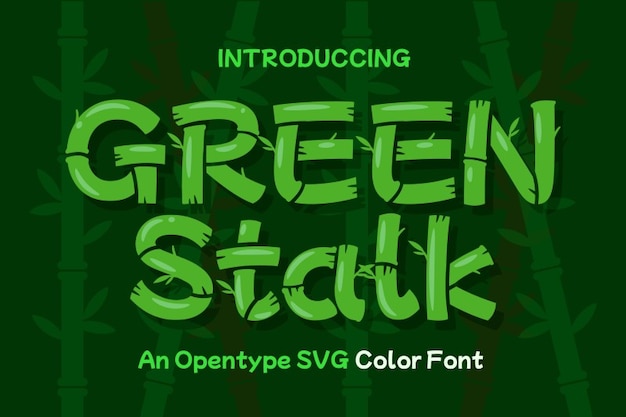
Green Stalk is a refreshing and nature-inspired font that captures the essence of bamboo and lush leaves. Perfect for tiki-themed designs, eco-friendly branding, and nature projects, this font features organic, leaf-like characters that evoke a sense of tranquility and the great outdoors. Green Stalk adds a touch of natural elegance and vitality to your text, making it stand out beautifully.